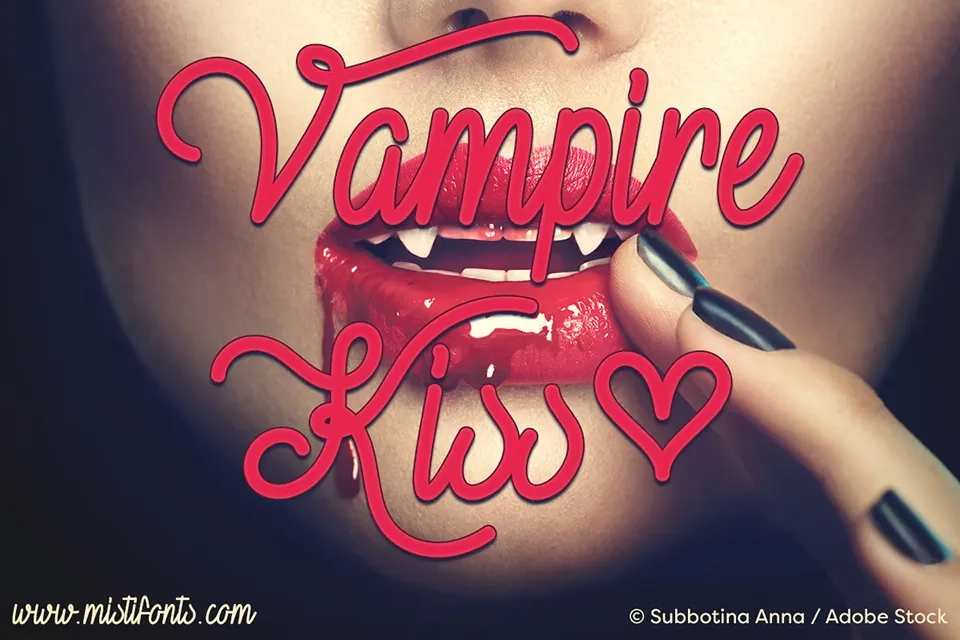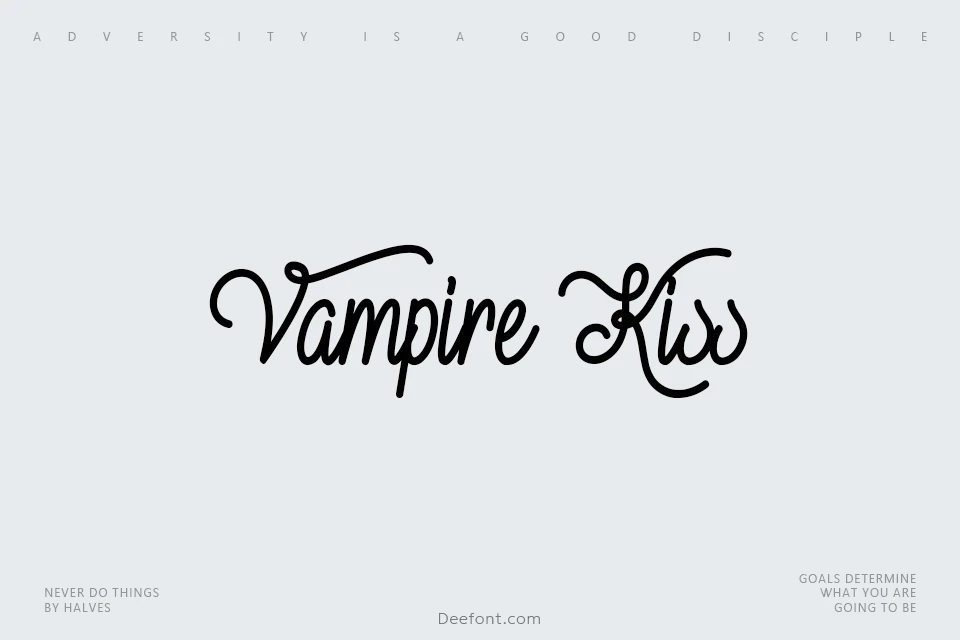
Vampire Kiss Font
Vampire Kiss Font, designed by Misti’s Fonts, is a fancy script typeface that blends cursive elegance with a touch of playful charm. Its handwritten, monoline style features flowing letterforms and swash caps, adding decorative flair. Despite its name suggesting a Halloween theme, it’s also tagged for Valentine’s Day and feminine designs, showcasing its versatility. This typeface works well for invitations, cards, posters, or any project needing a neat yet expressive handwritten look. Vampire Kiss Demo is available free for personal use, while commercial use requires a license.